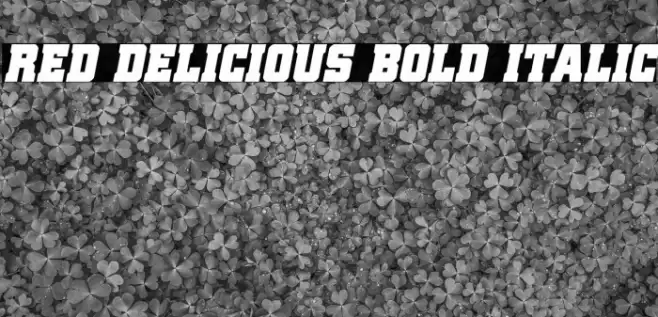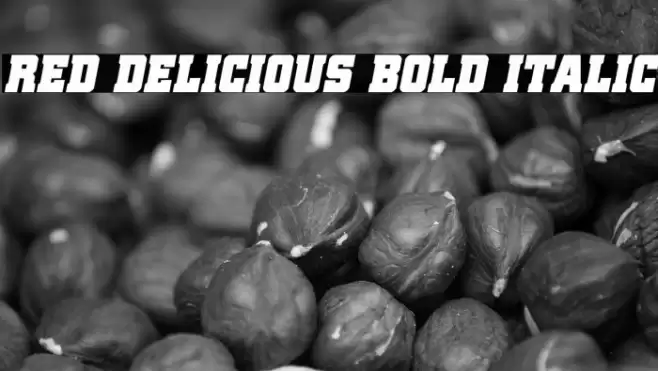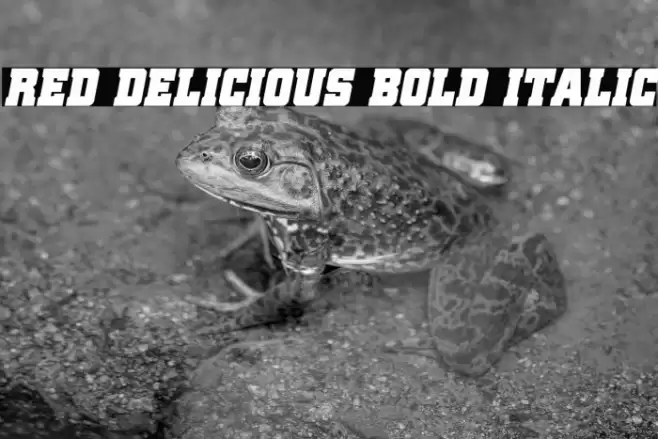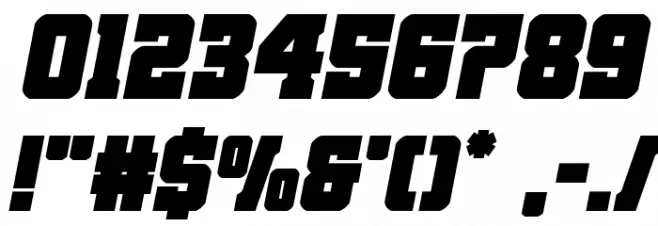
Red Delicious Bold Italic Font
Red Delicious Bold Italic Description
This font features a bold and italicized style with a strong, impactful presence. The characters are designed with a heavy weight, giving them a robust and assertive appearance. The italic slant adds a dynamic and energetic feel, making the font suitable for attention-grabbing headlines and titles. The letterforms are slightly condensed, enhancing the compact and powerful look. The font maintains a consistent stroke width throughout, contributing to its uniform and cohesive design. The overall style is modern and assertive, ideal for projects that require a bold statement.
A bold, italicized font with a strong, impactful presence and modern style from Uncategorized fonts.
- Proposed Projects: Ideal for sports branding, dynamic posters, bold headlines, and impactful advertising campaigns.